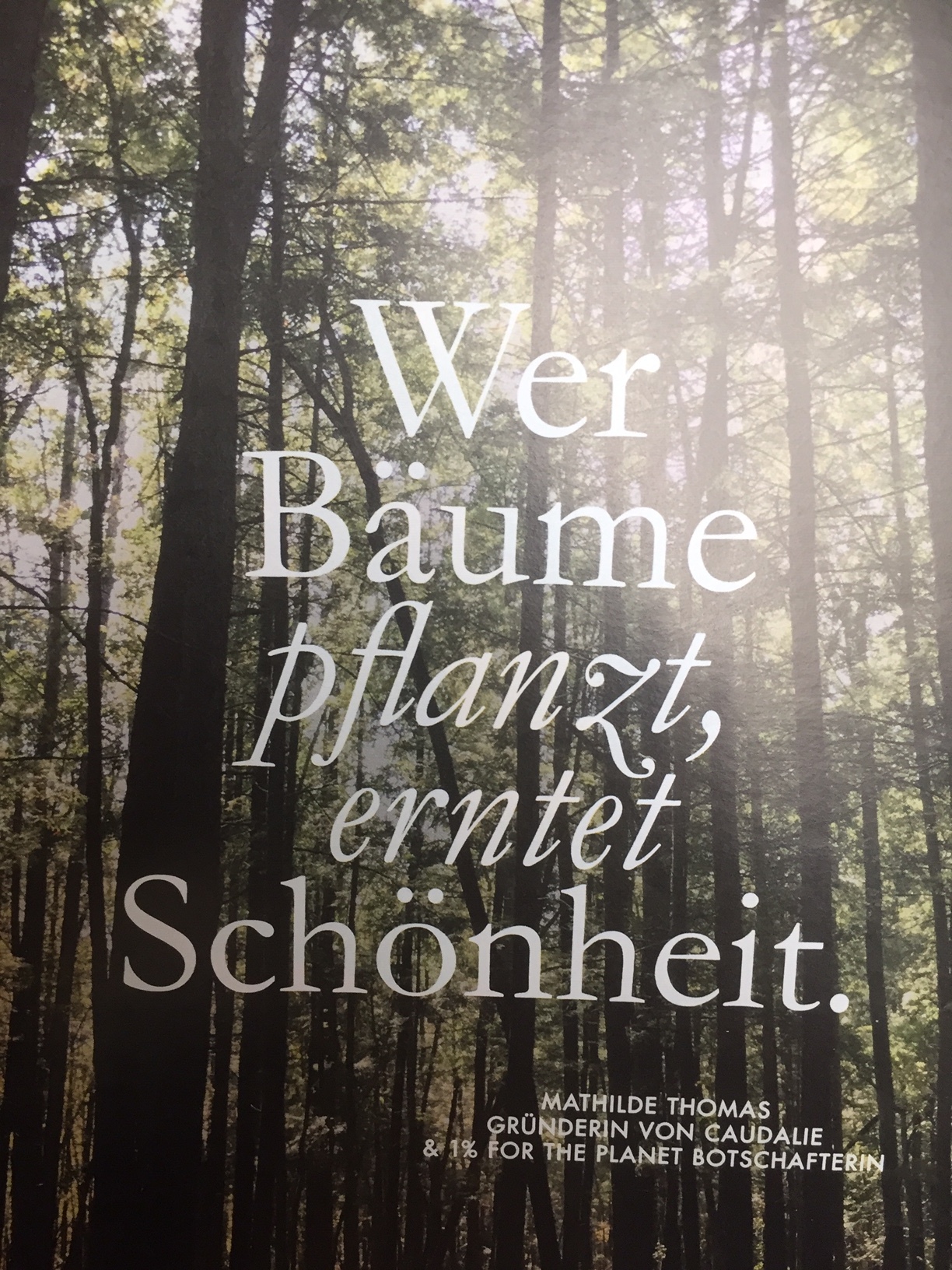
Hi, I love the font of the words that are not in italics. What could it be (words “Wer” “Baume” “Schonheit”)? I particularly love the a umlaut in “Baume”.
Matcherate was not success.
ITC Garamond is very close.
Hi, that’s cool! Thank you very much. I like Monotype Garamond.